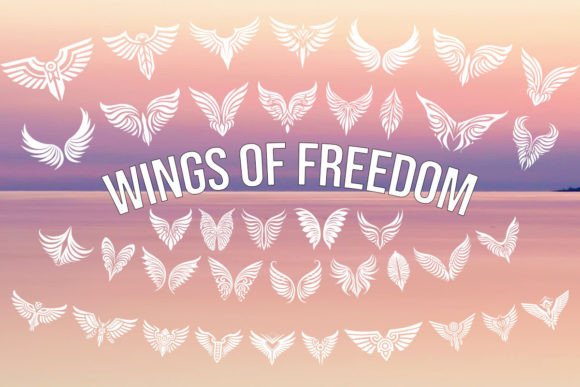
Dive into a world of boundless imagination with the Wings of Freedom Font, an exquisite collection of wing-inspired symbols from the creative minds at MOMAT THIRTYONE. Adorned with imagery of soaring wings, graceful feathers, and ethereal flight, this font family invites you to elevate your designs to new heights.
In a world seeking beauty and inspiration, the Wings of Freedom Font emerges as a beacon of creativity. Its intricate details and captivating forms breathe life into ordinary words, transforming them into captivating pieces of art. Experience the joy of expressing yourself in a language of flight, where each letter dances across the page with a sense of freedom and wonder.
Unleash your imagination and embark on a visual odyssey. The Wings of Freedom Font is your passport to a realm of stories waiting to be told. It is an emblem of hope and transcendence, encouraging you to soar beyond limitations and explore the boundless possibilities of your creativity.
More than just a font, the Wings of Freedom is a conduit for expression. It is a whispered secret shared between you and your audience, a visual symphony that resonates with the heart and ignites the soul. Its delicate strokes and enchanting symbols evoke emotions, leaving an indelible mark on all who encounter them.
With Wings of Freedom at your disposal, you hold the power to capture hearts and minds with your creations. Design becomes a form of magic, as you weave together words and images, creating a tapestry of emotions and experiences. This font is not merely a collection of symbols; it is a gateway to a world where dreams take flight and imagination knows no bounds.
Transform your designs into captivating narratives, where every wing carries a message of hope, inspiration, and limitless potential. With the Wings of Freedom Font, the sky's the limit.